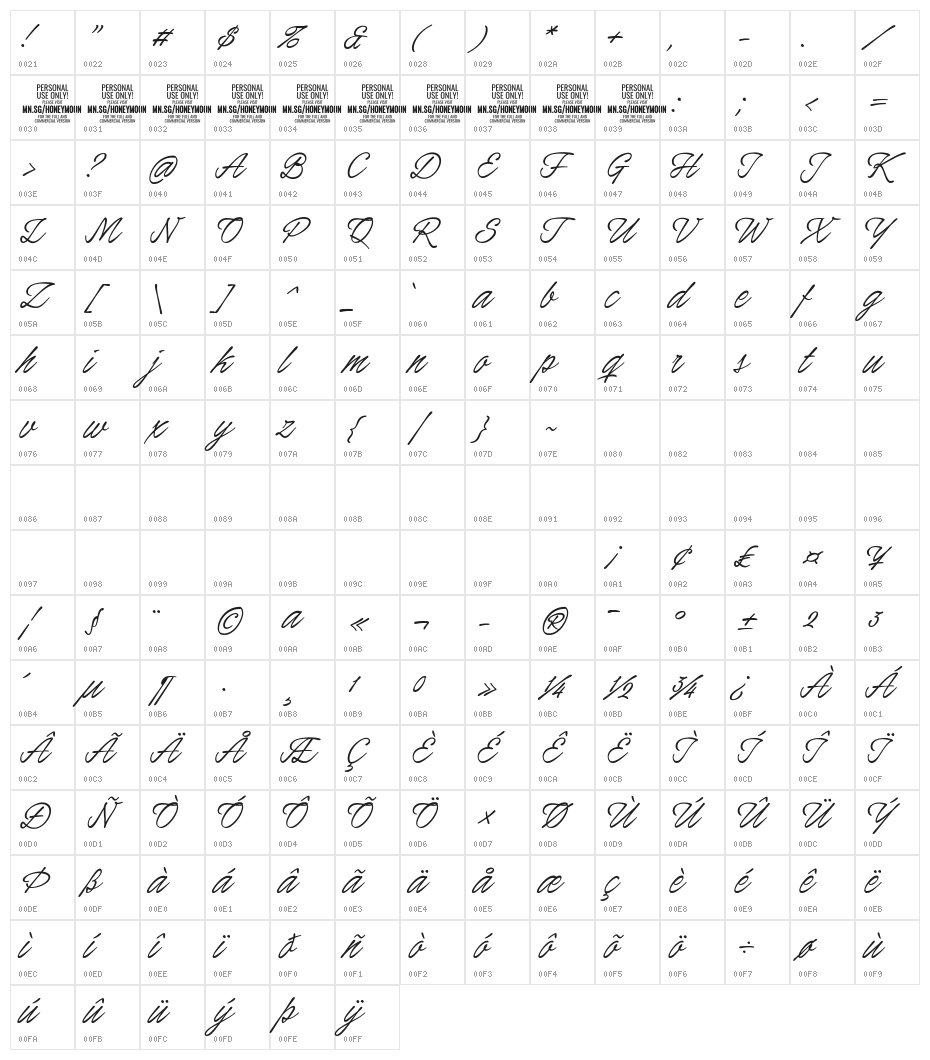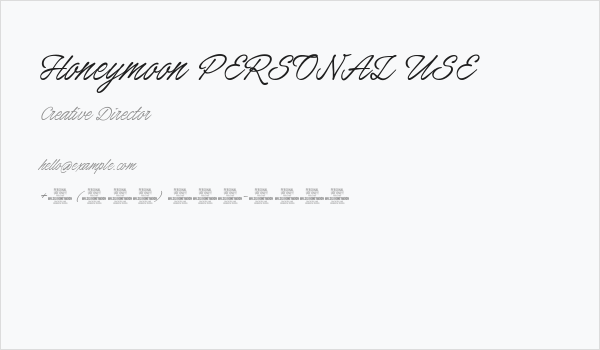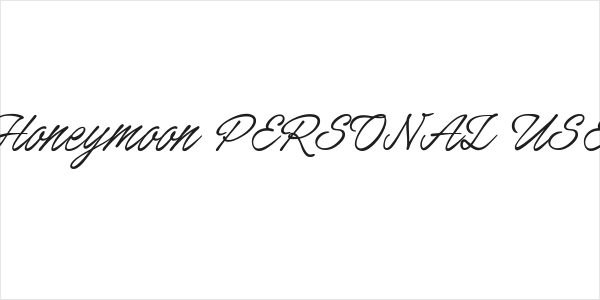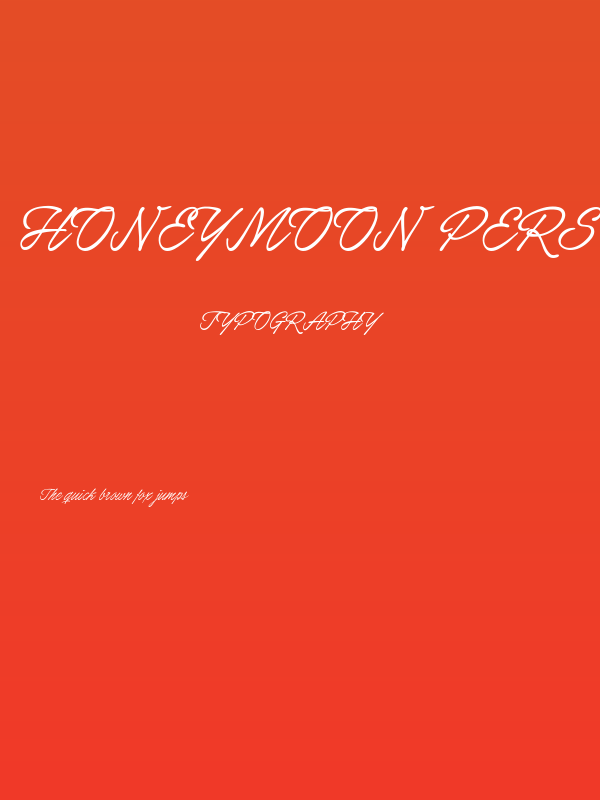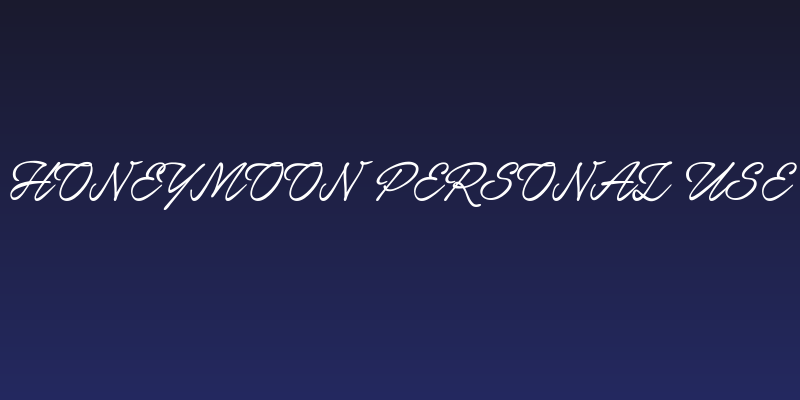
Honeymoon PERSONAL USE Font
Honeymoon PERSONAL USE Description
This elegant script font features flowing, interconnected letters that mimic the fluidity of handwriting. Each character is crafted with a graceful curve, giving the typeface a romantic and sophisticated appearance. The uppercase letters are slightly more ornate, with additional flourishes that enhance their decorative quality. The lowercase letters maintain a consistent style, ensuring readability while preserving the font's artistic flair. The numerals and special characters are designed to complement the alphabet, maintaining the same elegant style. This font is perfect for projects that require a touch of elegance and personal expression.
| Overall Style | Romantic |
| Proposed Projects | Ideal for wedding invitations, greeting cards, personal branding, and elegant logos. |